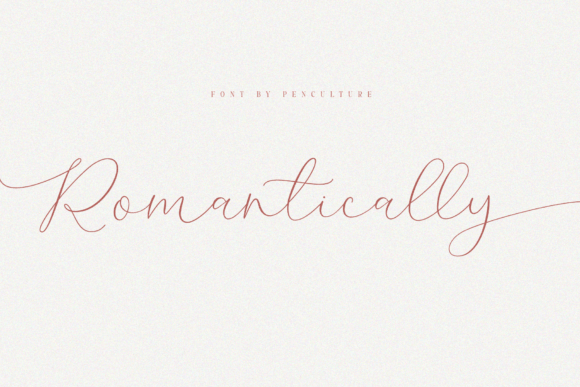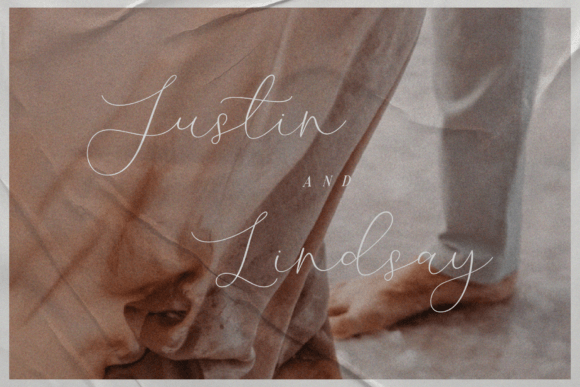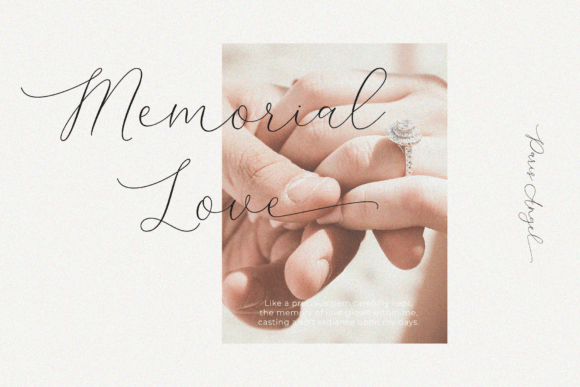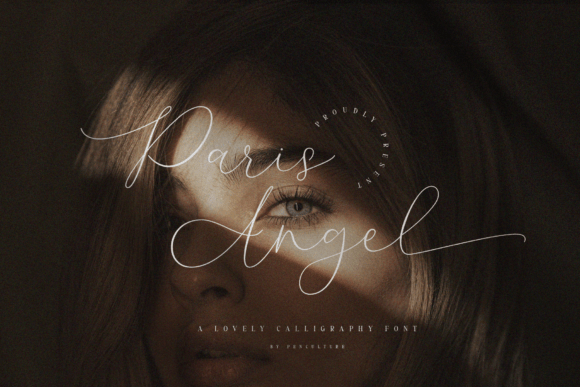
Introduction to Paris Angel Font
Paris Angel is a graceful and elegant calligraphy font that exudes timeless beauty and sophistication.
Designed with meticulous attention to detail, Paris Angel captures the essence of romantic handwriting, making it the perfect choice for adding a touch of charm to your projects .
Paris Angel Font offers exceptional quality and versatility, making it a valuable addition to your design toolkit. Whether you’re creating for personal projects or commercial use, Paris Angel Font delivers professional results.